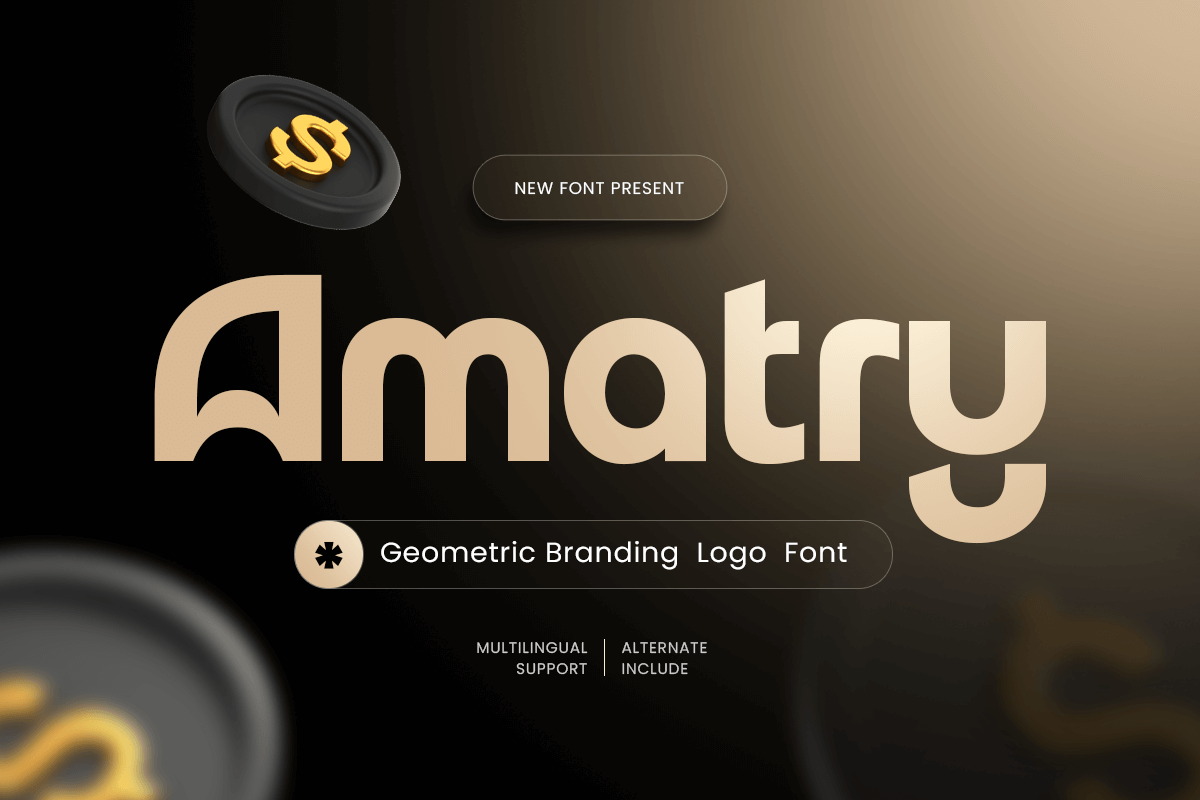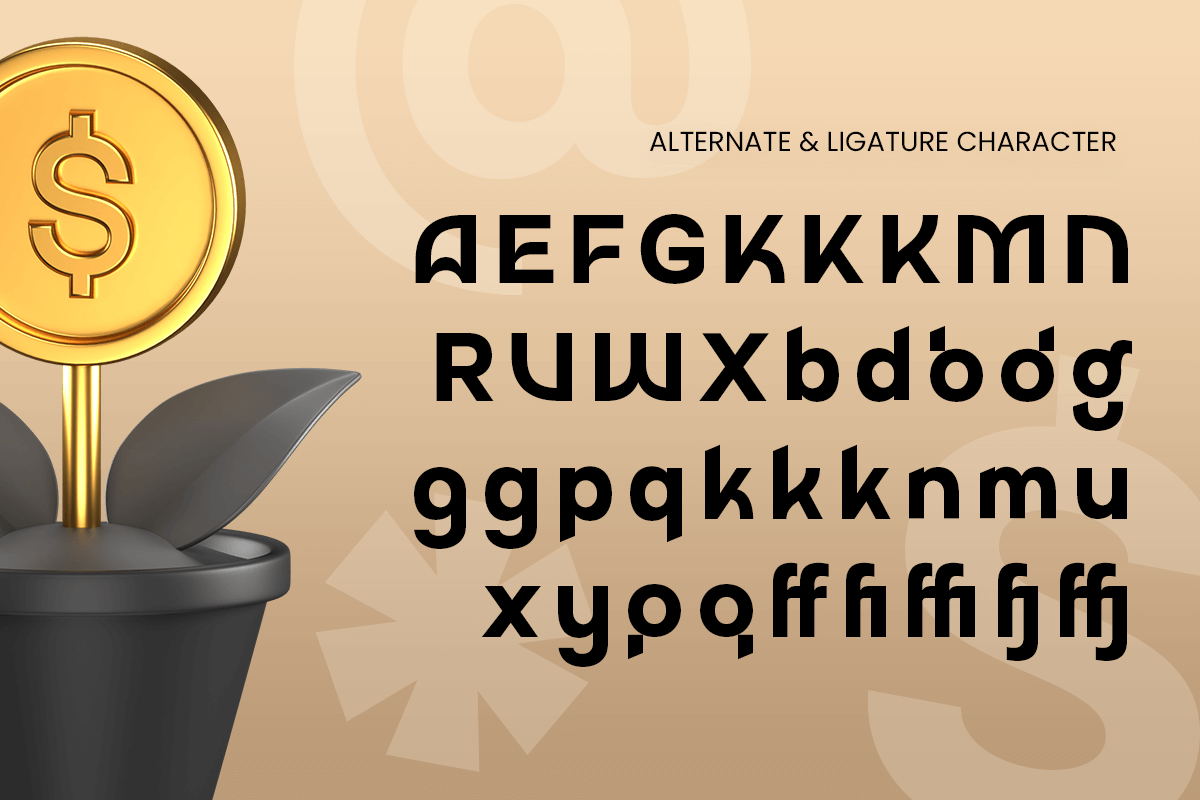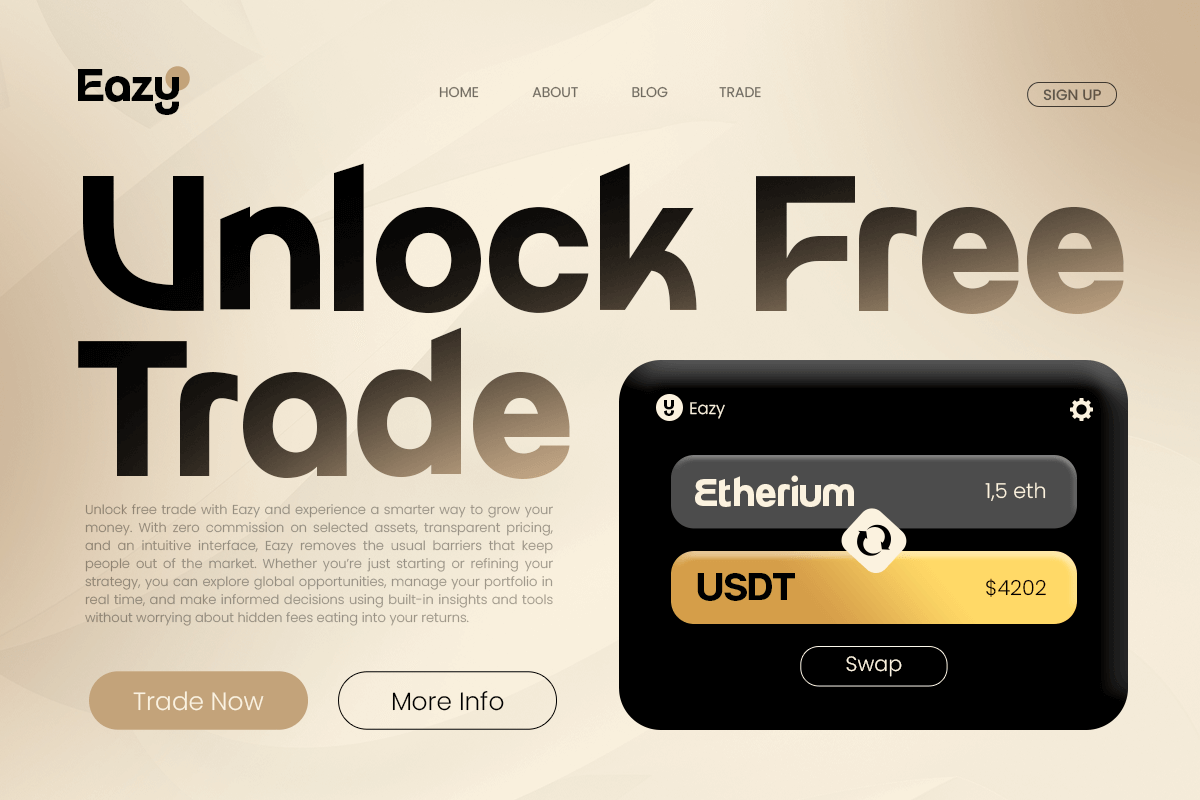
Amatry – Geometric Branding Logo Font
Amatry is a geometric logo font by SelarasWP. The letters are heavy and built from simple shapes, with rounded outer corners and sharp inner joins, so words look solid but friendly. Several letters, including the A, have distinctive single-storey or cut shapes that make a short name look like a logo without extra work.
The full font includes alternates and ligatures, such as different forms of k, g and the ff and fi pairs shown in the specimen, plus uppercase, lowercase, numerals and punctuation in OTF, TTF, WOFF and WOFF2. The specimen also notes multilingual support.
Best uses for Amatry
• Start-up, fintech and app logos
• Website hero headings and landing pages
• Packaging and product branding
• Social media posts for tech brands
• Posters and event titles
Amatry is heavy and distinctive, so keep partners simple. Inter suits interface text and body copy. For a friendlier tone, try DM Sans. If you need a light display partner for subheads, Lexend in Light shares its geometric construction.
What free font is similar to Amatry?
Try Righteous, a free geometric display font with a similar rounded, heavy feel, or Lexend in its Bold and Black weights for a cleaner option. Both are open-licence.